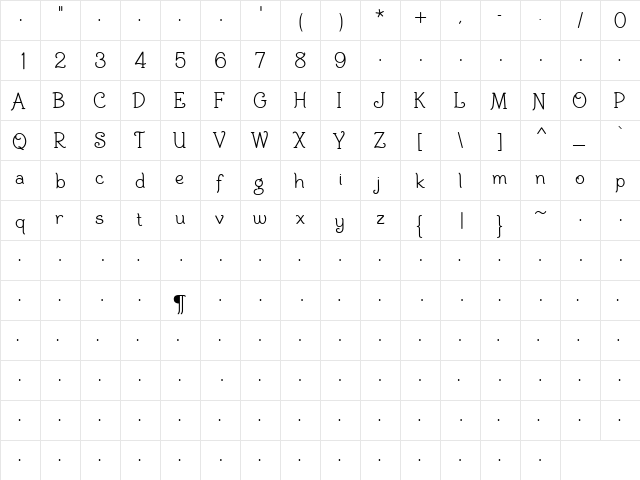
BiracDT Regular Font Preview
BiracDT Regular
BiracDT Regular Font Details
| Foundry | DTP Types Limited |
Design Context for BiracDT Typeface
BiracDT is a composed and adaptable typeface that performs quietly and consistently across a wide range of design contexts.